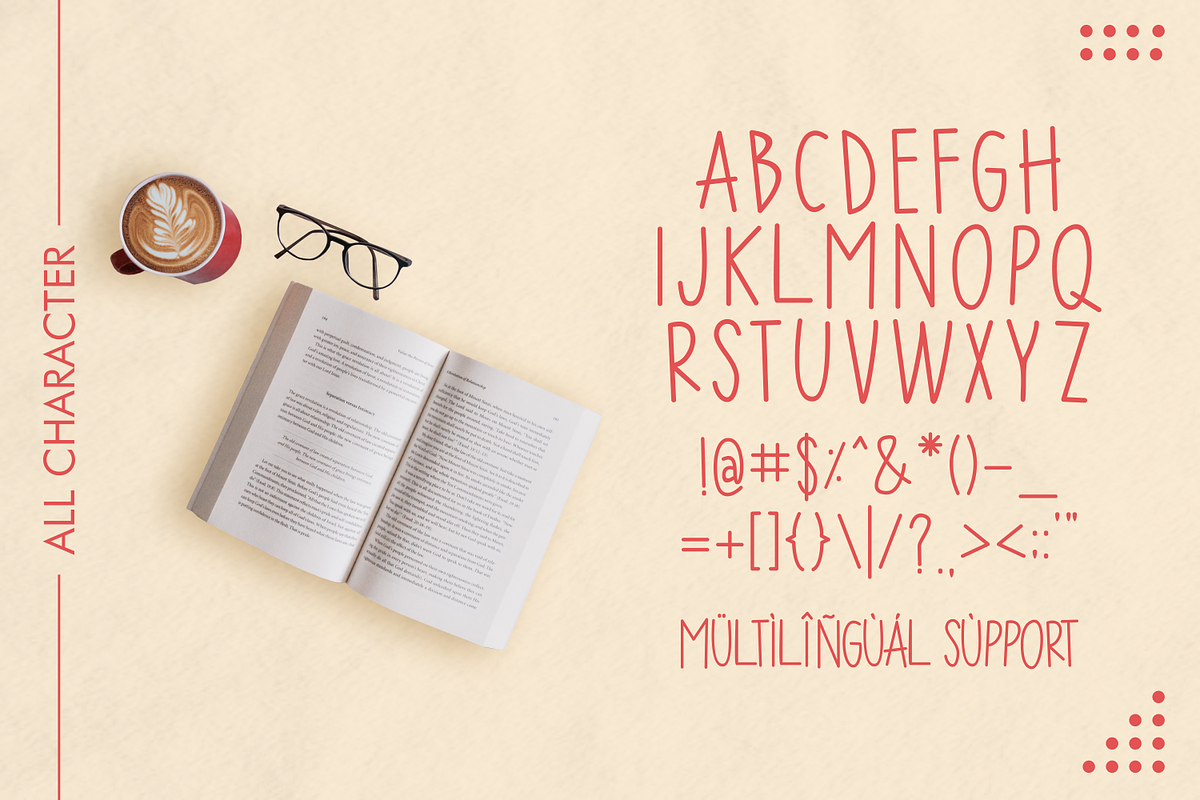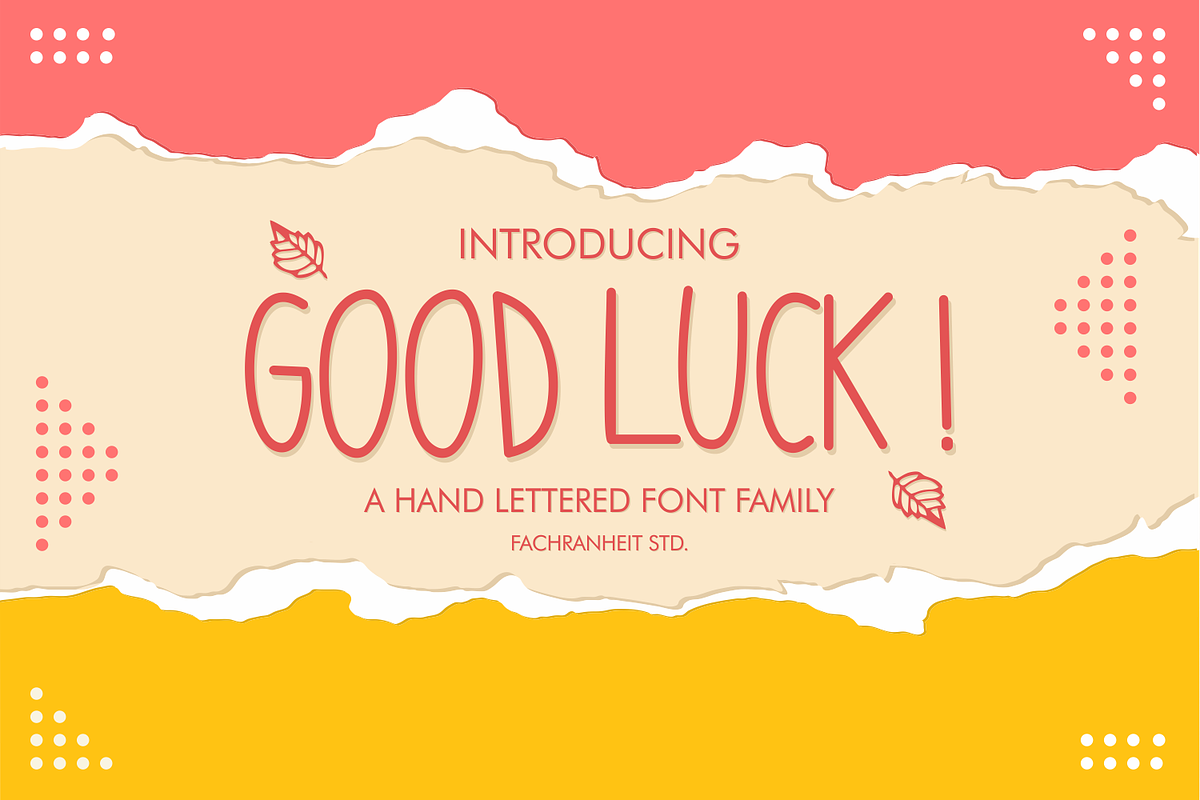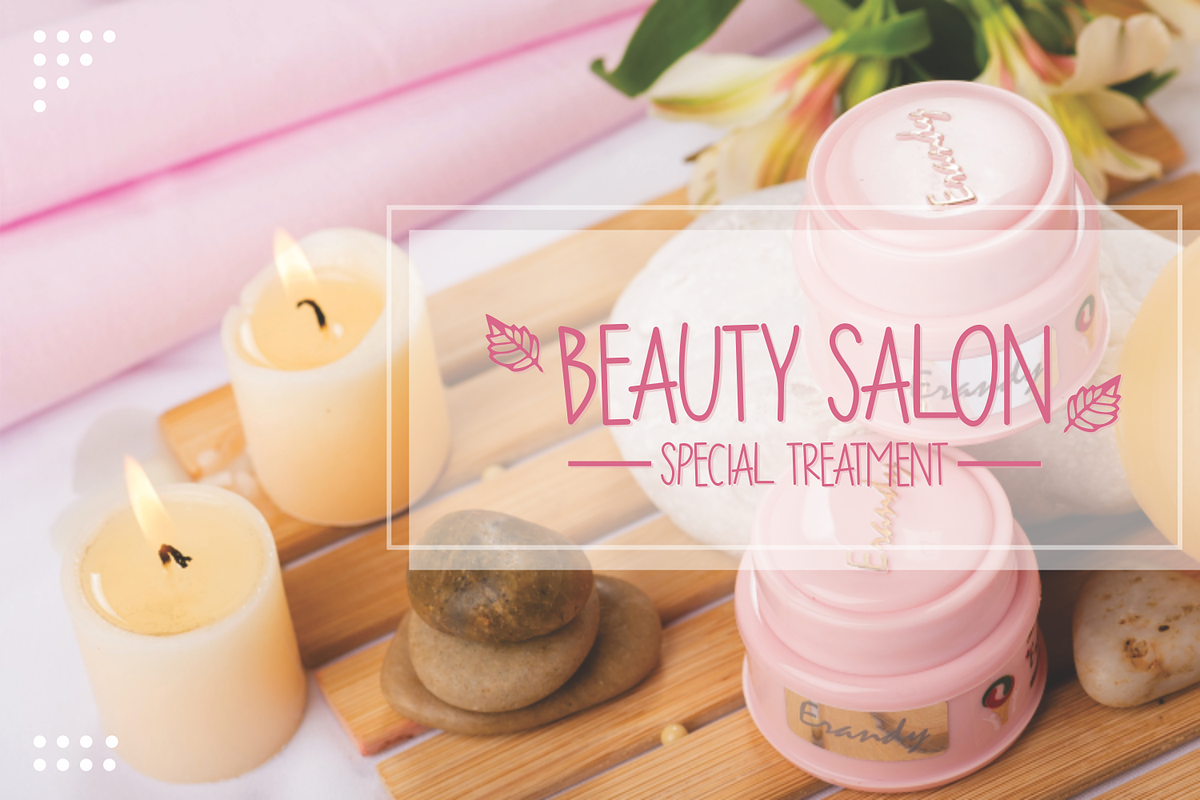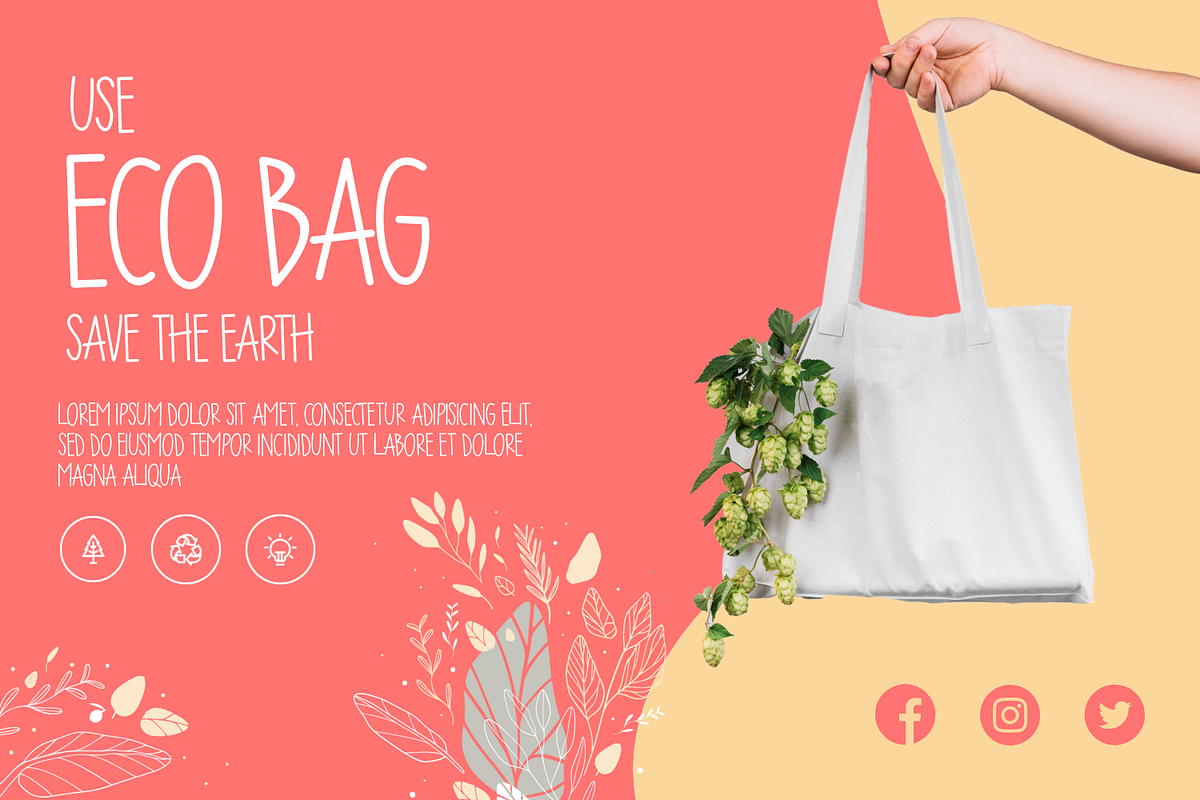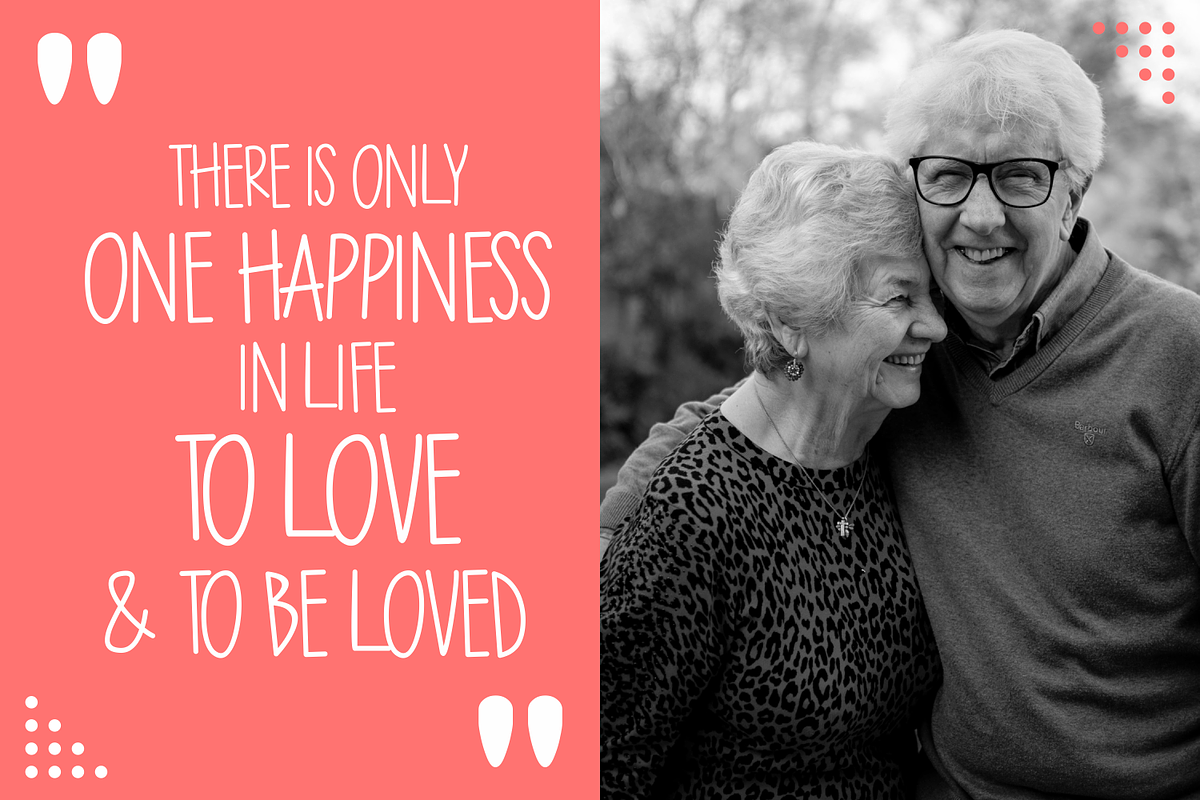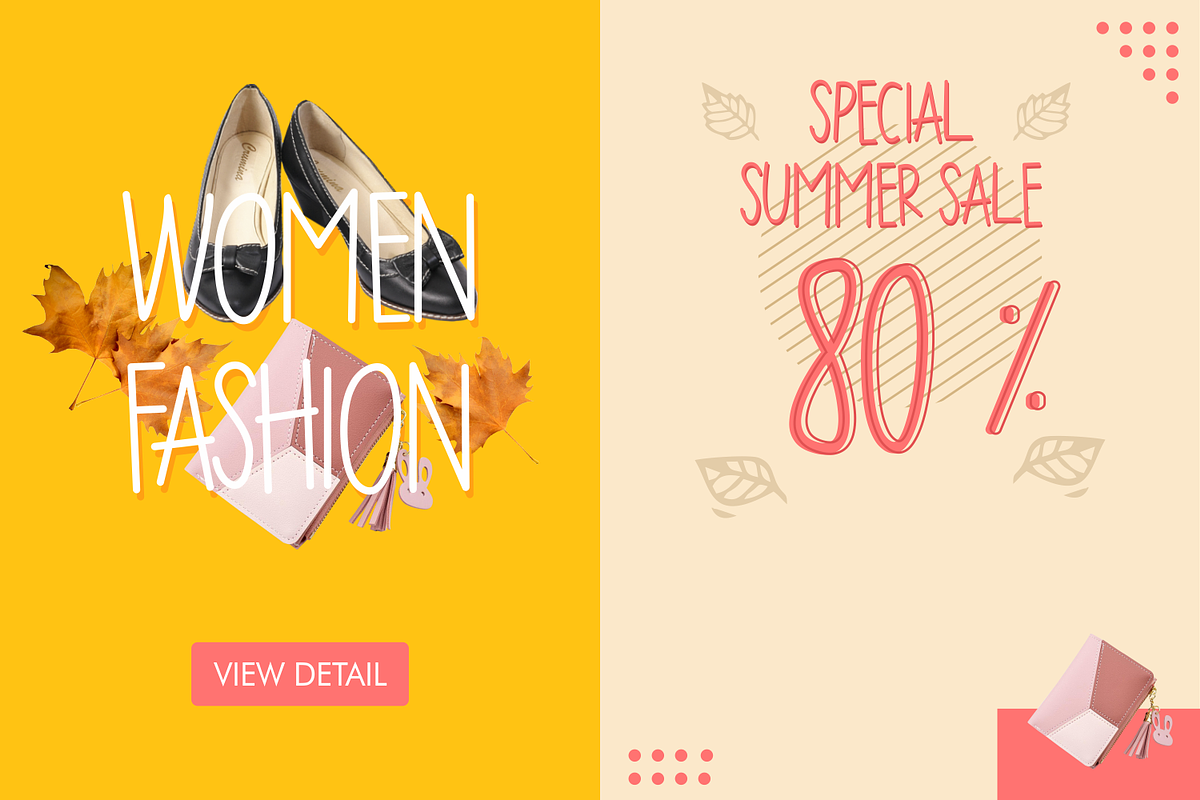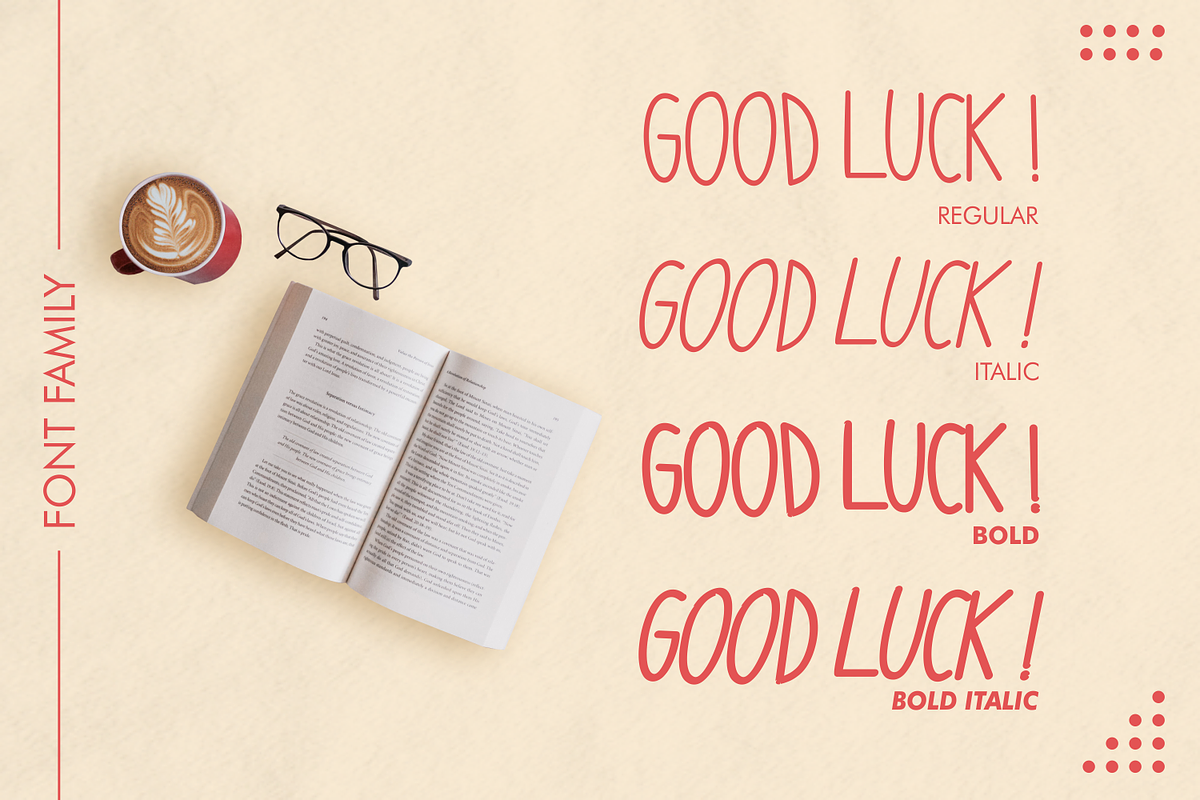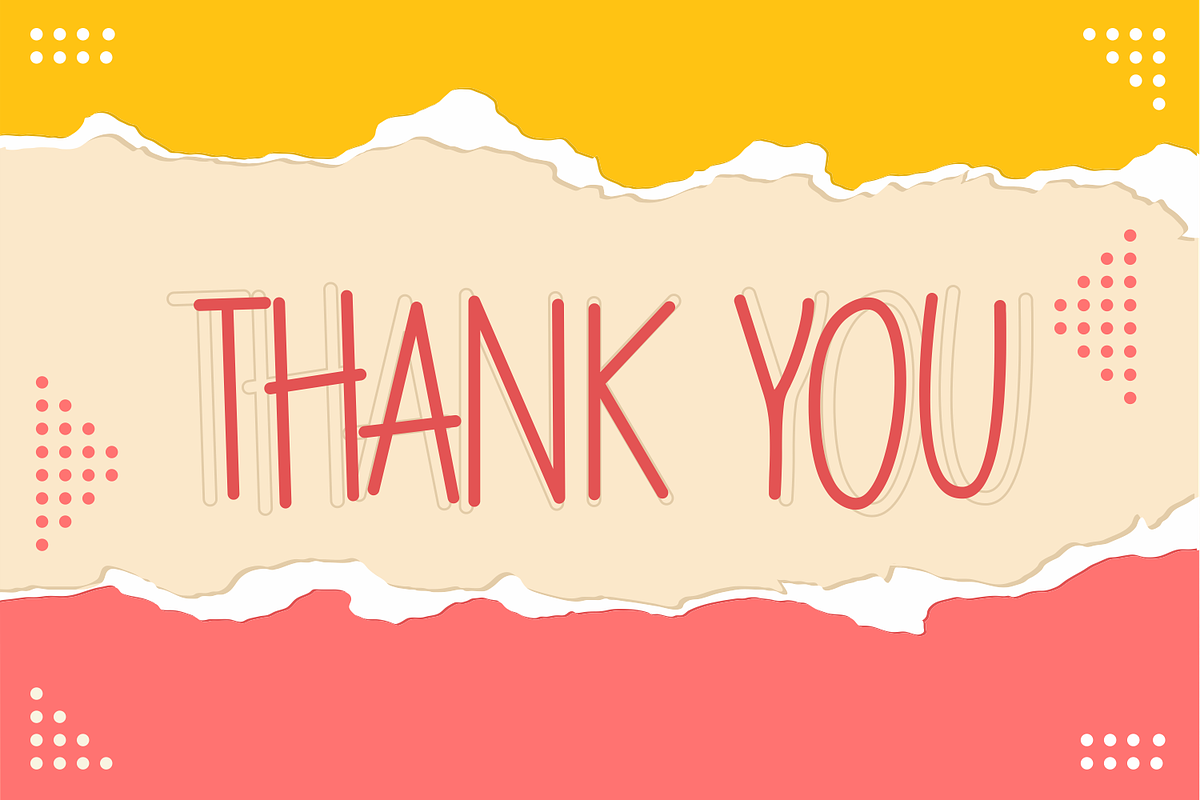
Good Luck!
The Good Luck ! is a handlettered font family. Its unique flow and fun feel makes it perfect to use for quotes, logotype, badges, labels, packaging, or simply to use it in your next design project
Good Luck ! comes with all caps characters, numbers, marks and punctuation . its also comes with four style: regular, italic, bold, bold italic and support multilanguage.